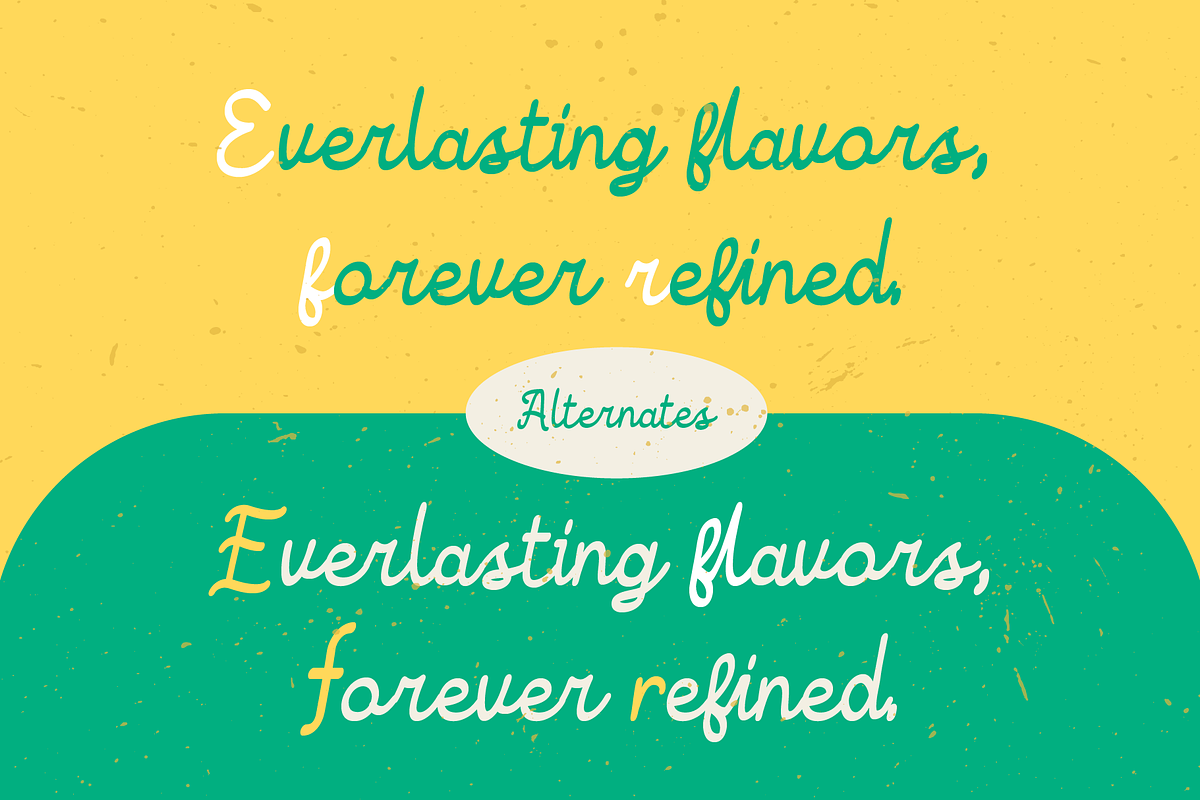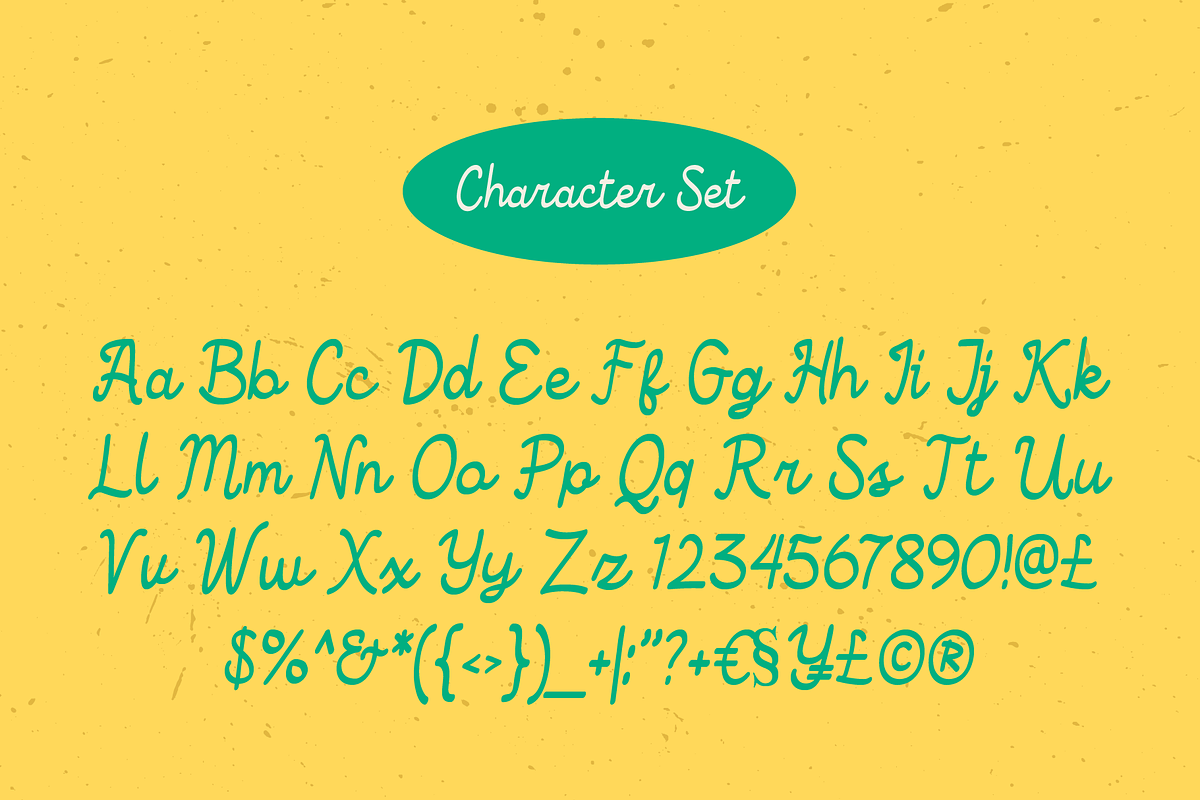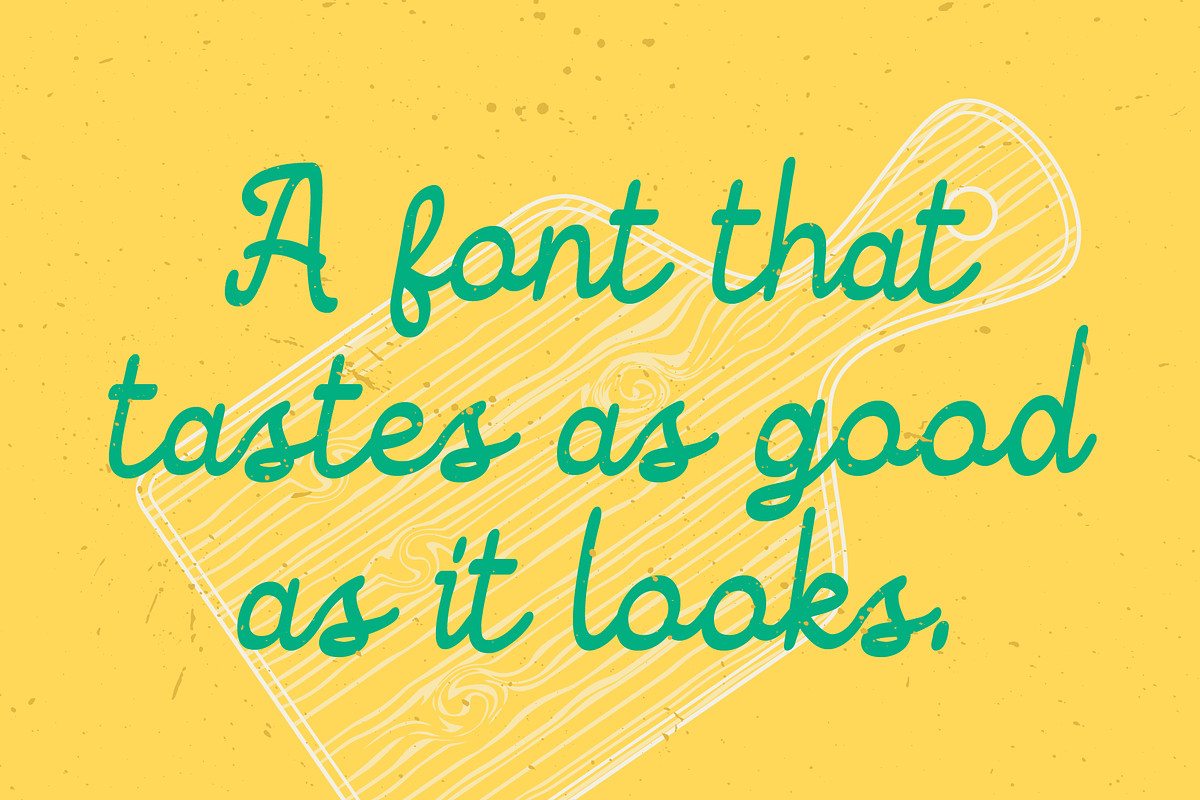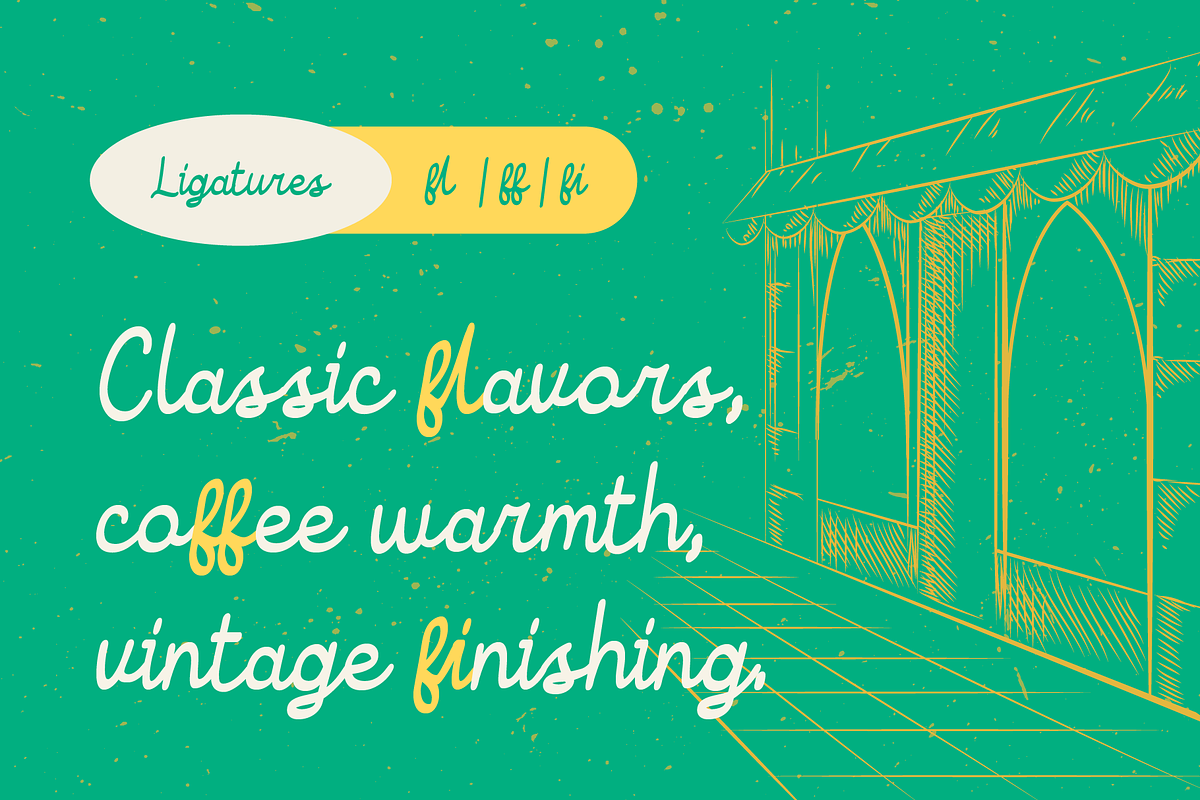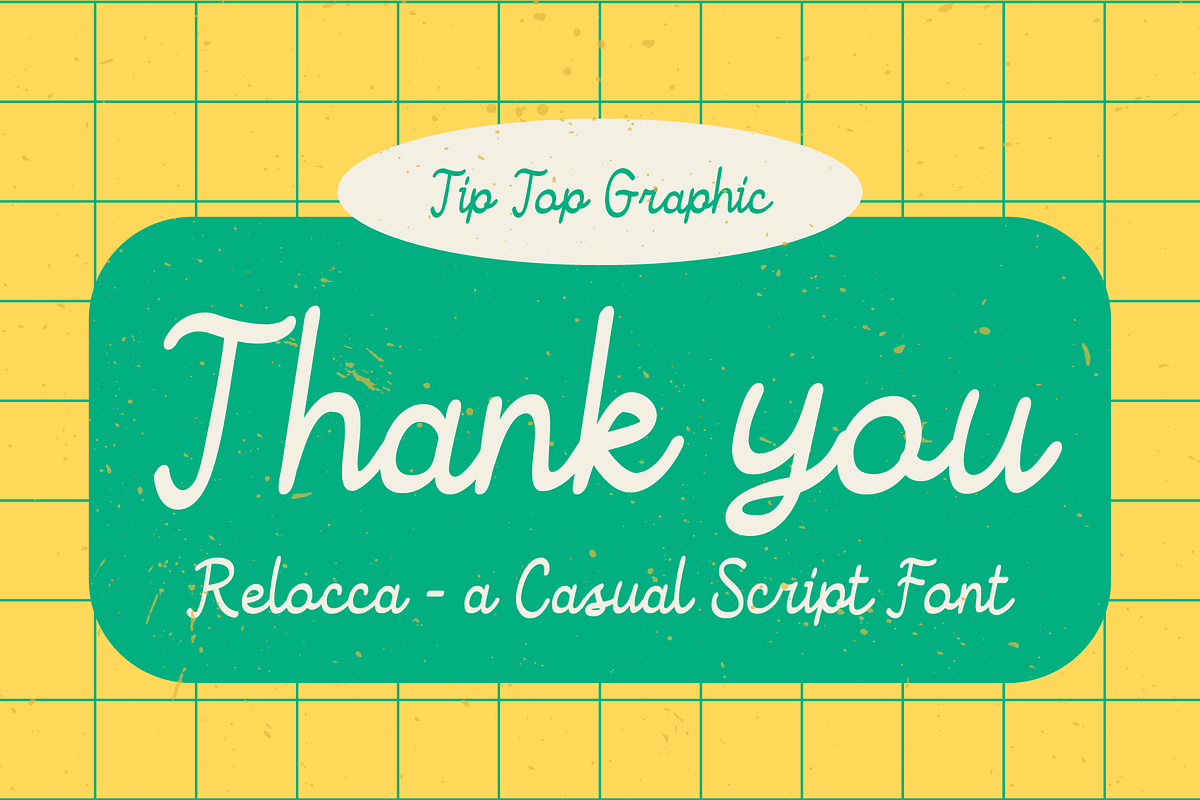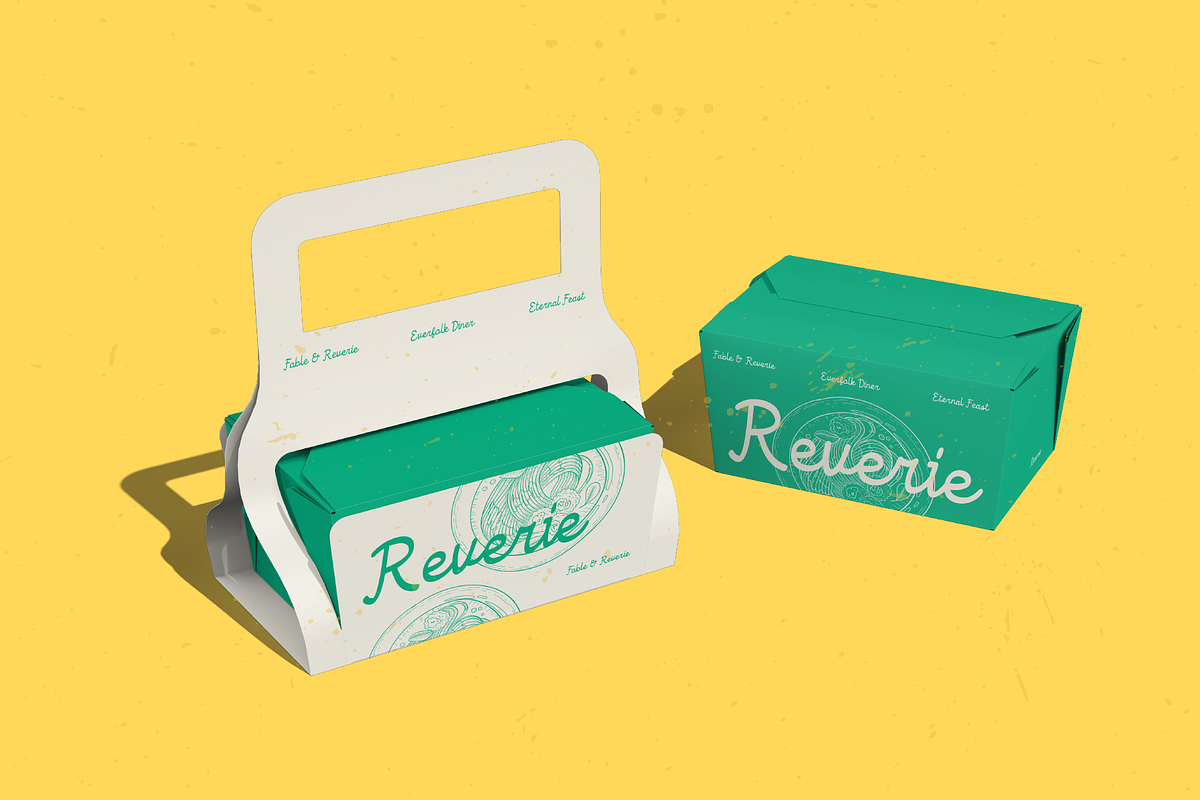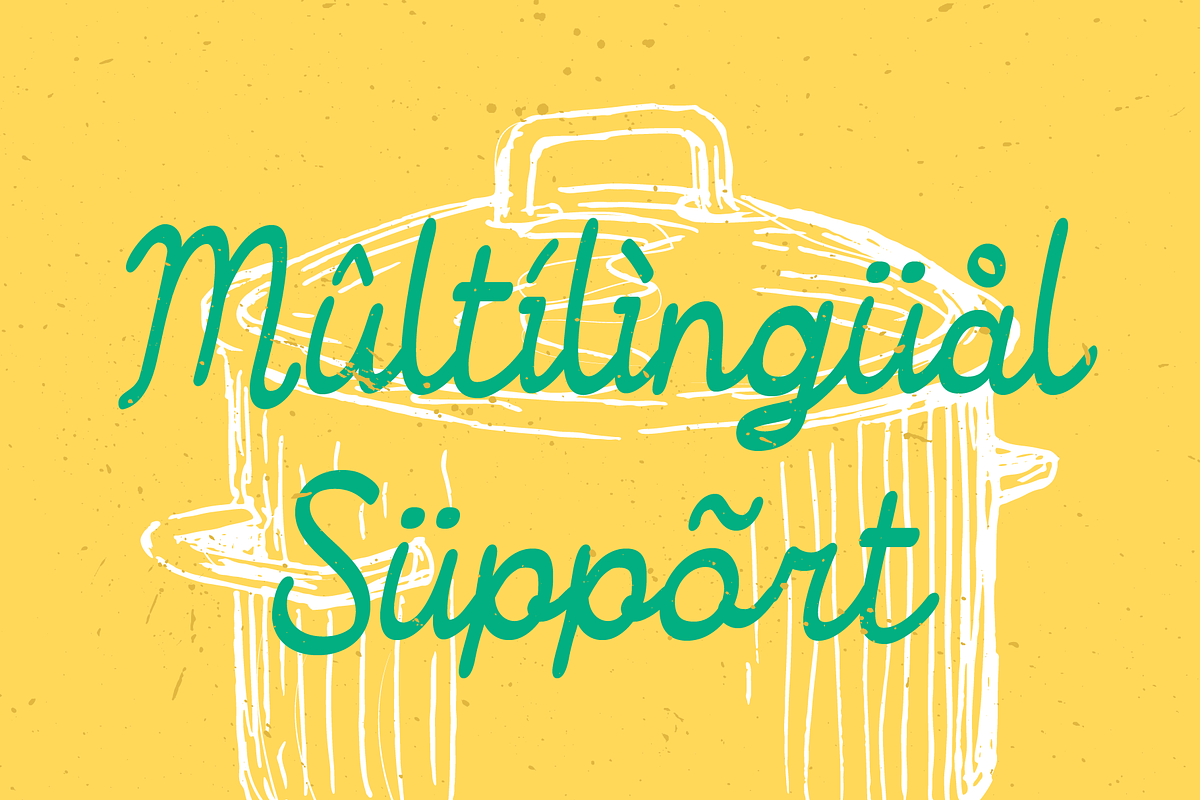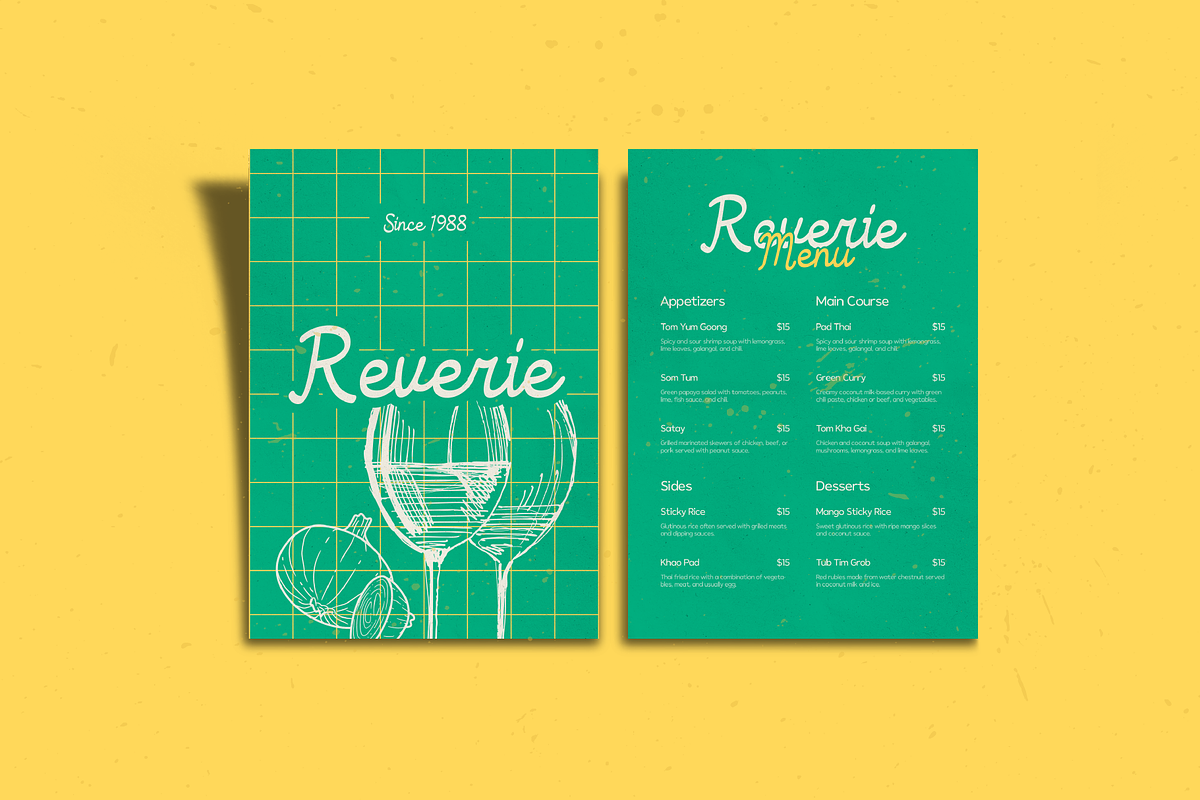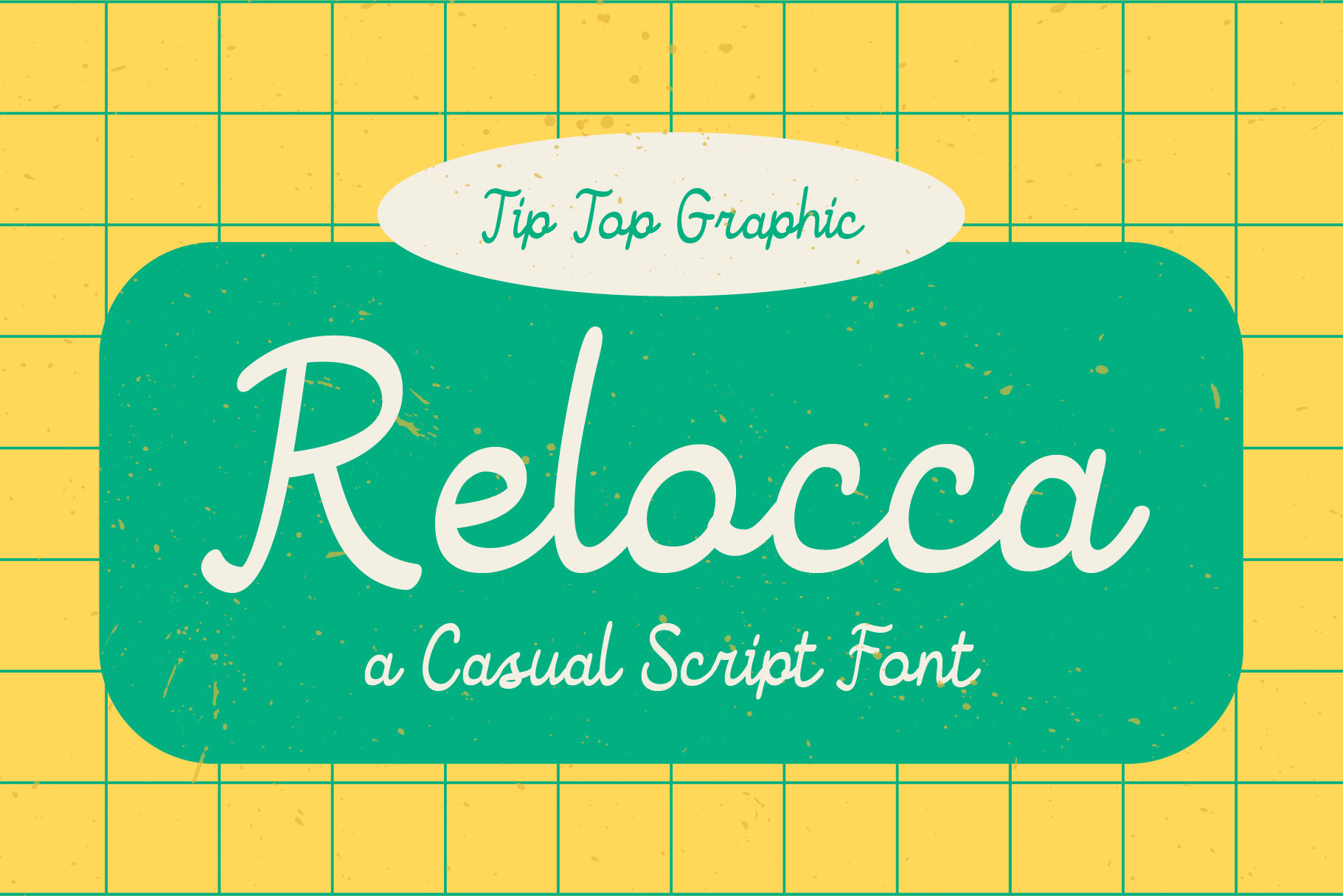
Relocca – A Casual Script Font
Relocca – A Casual Script Font is a fancy retro-inspired typeface that blends smooth handwritten flow with classic vintage charm. Designed with playful curves and confident strokes, Relocca brings a warm, nostalgic feel while staying relaxed and approachable. Its natural script style makes every word feel personal yet stylish, perfect for designs that want to stand out without feeling stiff.
Relocca works beautifully for logos, branding, packaging, posters, social media graphics, quotes, and retro-themed projects. Whether you’re aiming for a classy vintage look or a fun, casual vibe, Relocca adds character, elegance, and timeless flair to your typography.
Relocca – A Casual Script Font features:
- Punctuation & Numbers